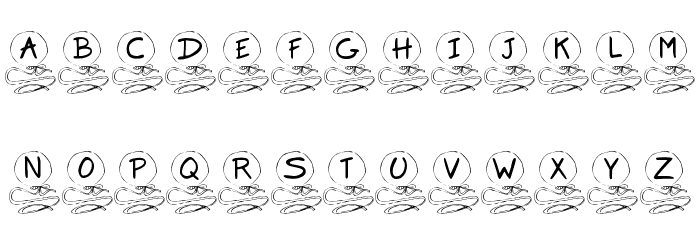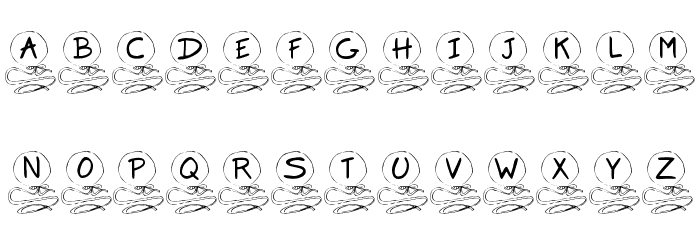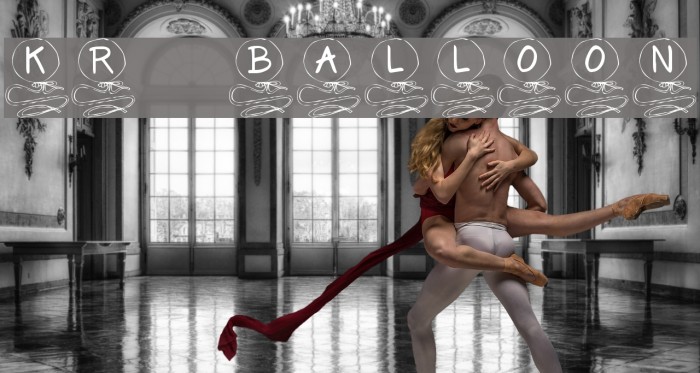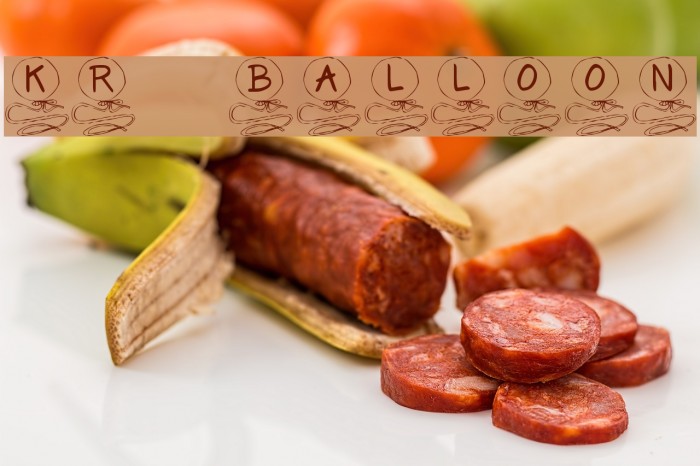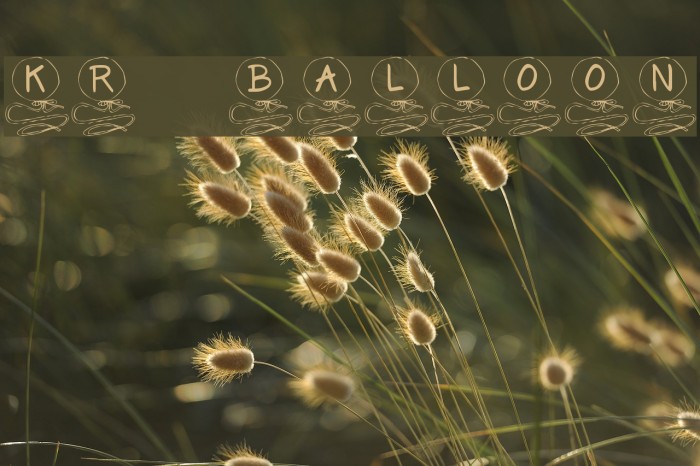
KR Balloon Font
This playful and whimsical font features each letter encapsulated within a balloon shape, complete with a string tied at the bottom. The letters are bold and rounded, giving them a friendly and approachable appearance. The balloon design adds a decorative and festive touch, making it ideal for celebratory or child-oriented projects. The overall style is light-hearted and fun, with a focus on creativity and imagination. The font maintains consistency in its balloon motif across all characters, ensuring a cohesive look.
A playful font with letters inside balloon shapes, perfect for festive designs.